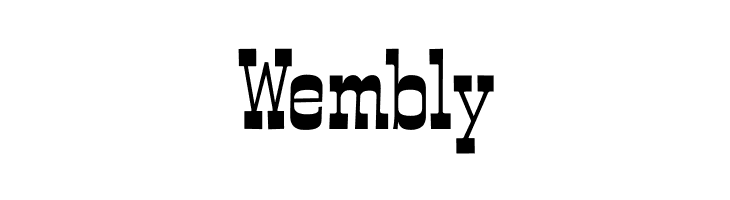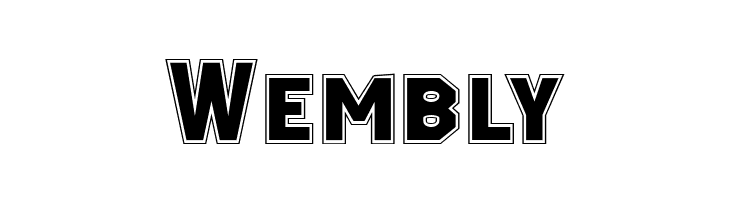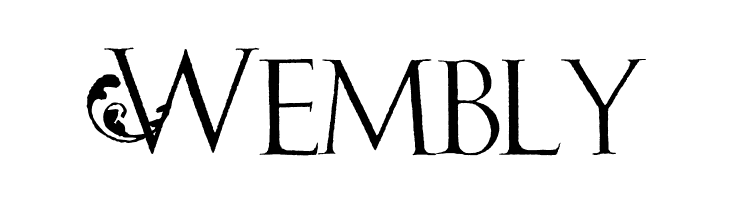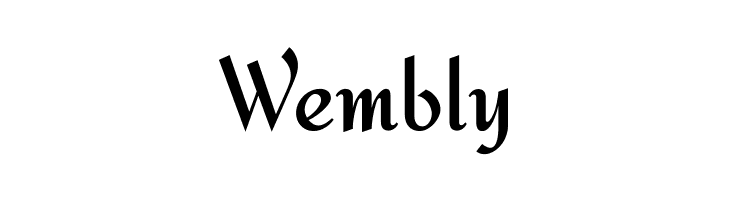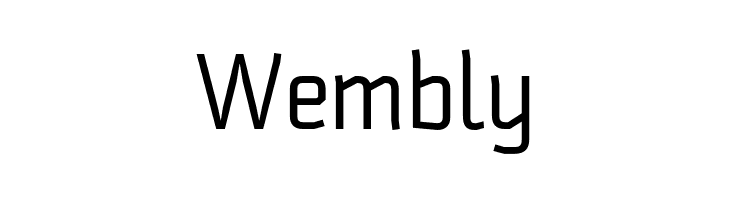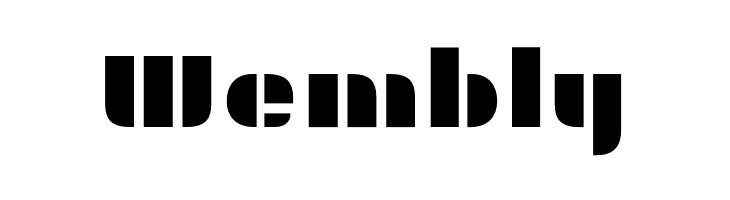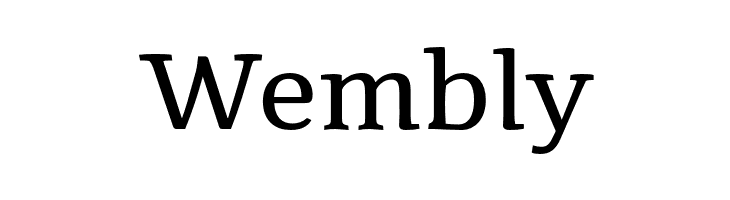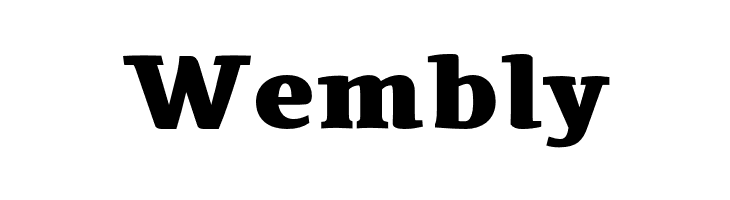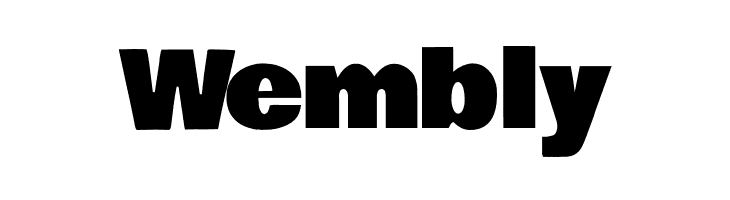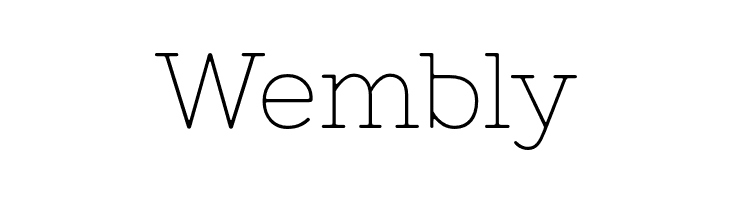
A lively, cursive script font with smooth, connected strokes.
A bold slab serif font with a vintage Western flair.
An ornate and decorative serif font with intricate flourishes.
A classic, elegant font with a modern twist and moderate contrast.
A modern, geometric sans-serif font with a clean and balanced design.
A bold, geometric font with block-like letterforms and sharp angles.
A modern serif font with clean lines and balanced proportions.
A bold serif font with thick strokes and strong serifs, perfect for impactful headlines.
A bold, impactful font with thick, rounded strokes for strong visual statements.
A playful, casual handwritten font with fluid strokes and rounded edges.
A bold, slab serif font with a vintage Western style.
A modern, monospaced font with a retro electronic display vibe.
A bold, italic serif font with a classic and elegant style.
A geometric, angular font with a modern and technical style.
A heavy serif font with strong contrasts and a classic style.
An elegant and decorative script font with flowing, cursive letterforms.
) A modern sans-serif font with clean, balanced letterforms and consistent stroke width.
A playful, bold script font with smooth, flowing curves and a handwritten feel.
An elegant serif typeface with high contrast and a classic italic style.
A classic serif font with high contrast and elegant serifs.
A classic serif typeface with high contrast and elegant serifs.
A classic serif font with high contrast and elegant serifs.
A casual, handwritten font with fluid strokes and a personal touch.
A vintage typewriter-style font with a monospaced, slab serif design and a slightly distressed look.
A modern, geometric font with a technical and sleek design.
A modern, sleek font with sharp angles and smooth curves.
A bold, modern geometric font with a sleek and professional appearance.
An ornate and whimsical font with decorative swirls and playful skull illustrations.
A bold, modern font with elongated vertical lines and sharp edges.
A modern, light-weight font with clean lines and excellent readability.
A bold, modern typeface with clean lines and a strong presence.
A modern, clean sans-serif font with a slightly condensed style.